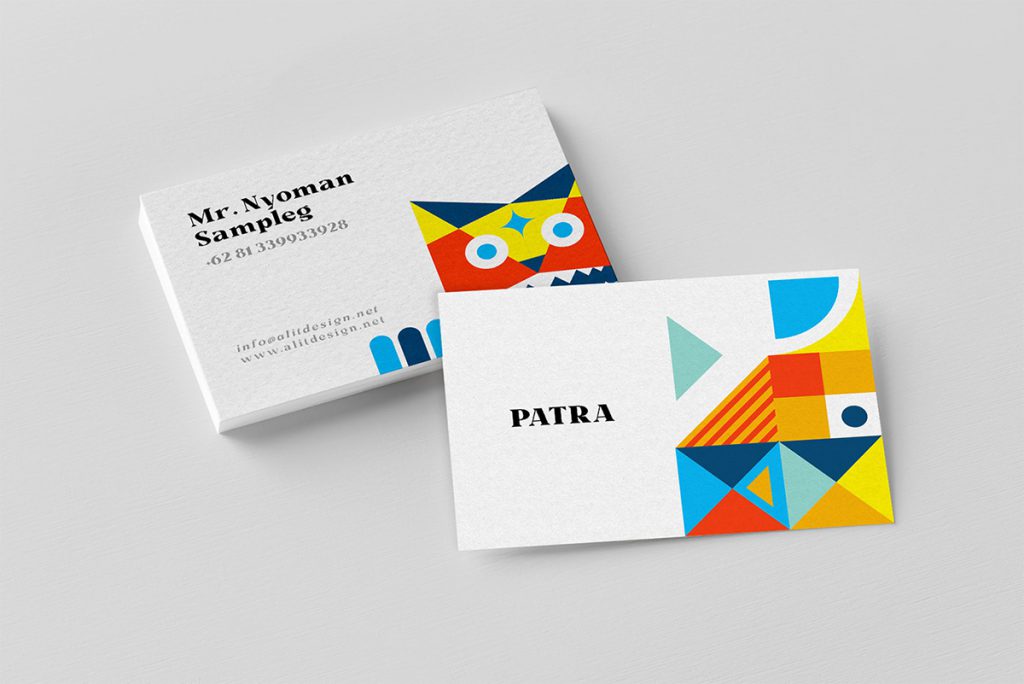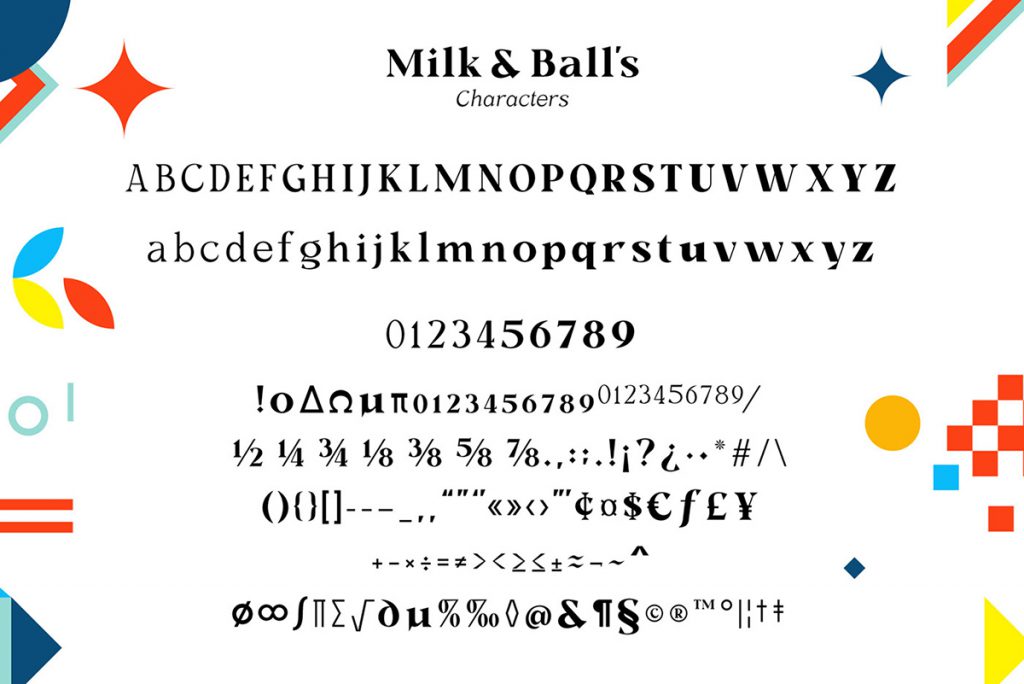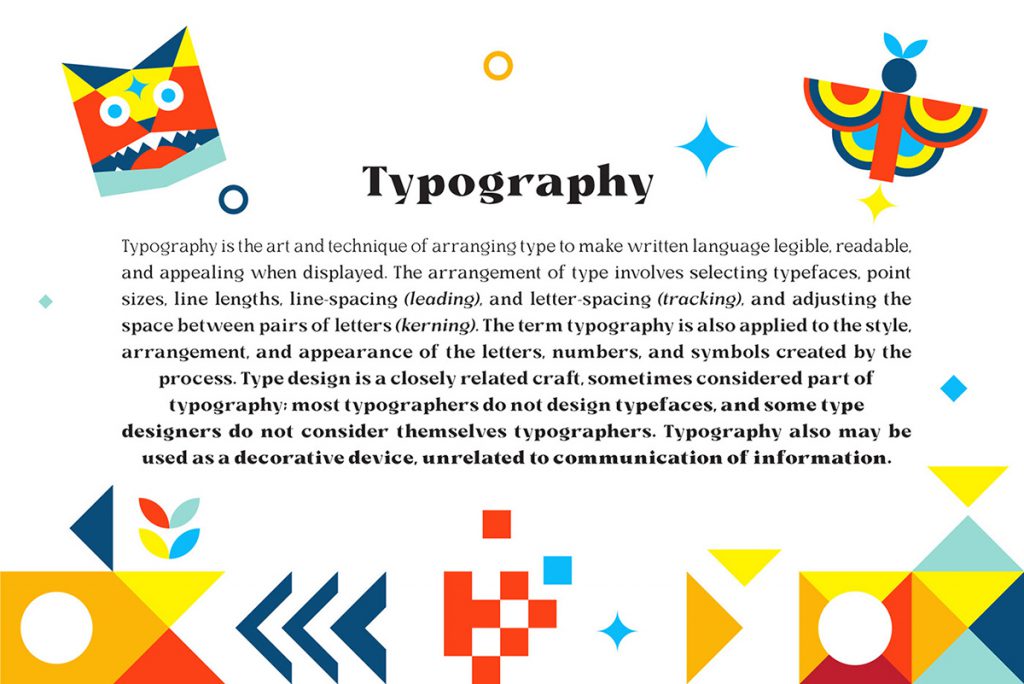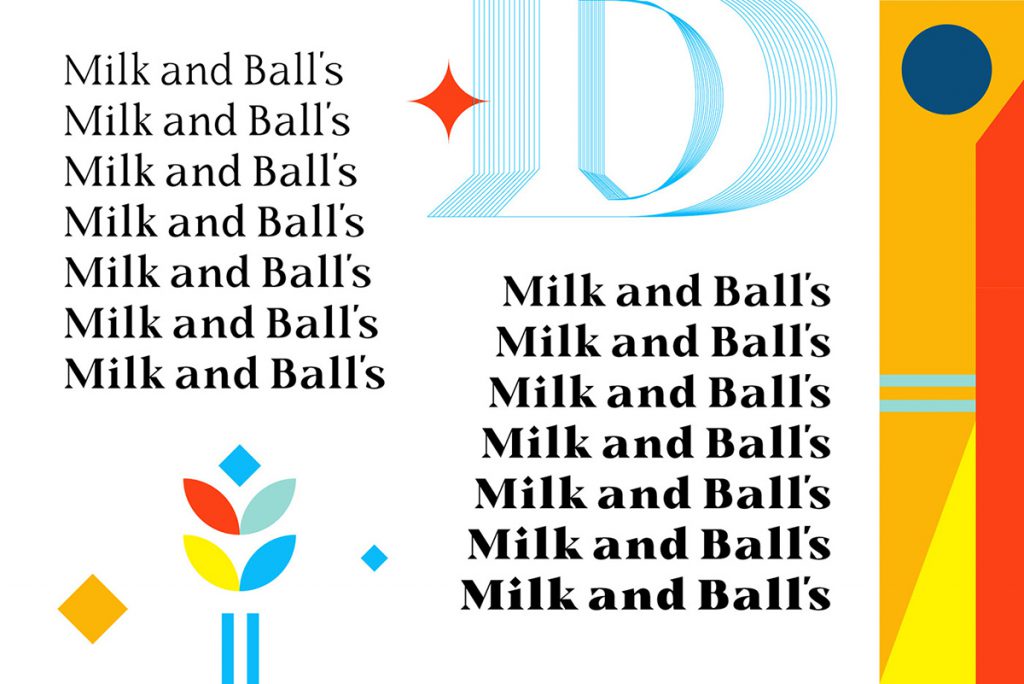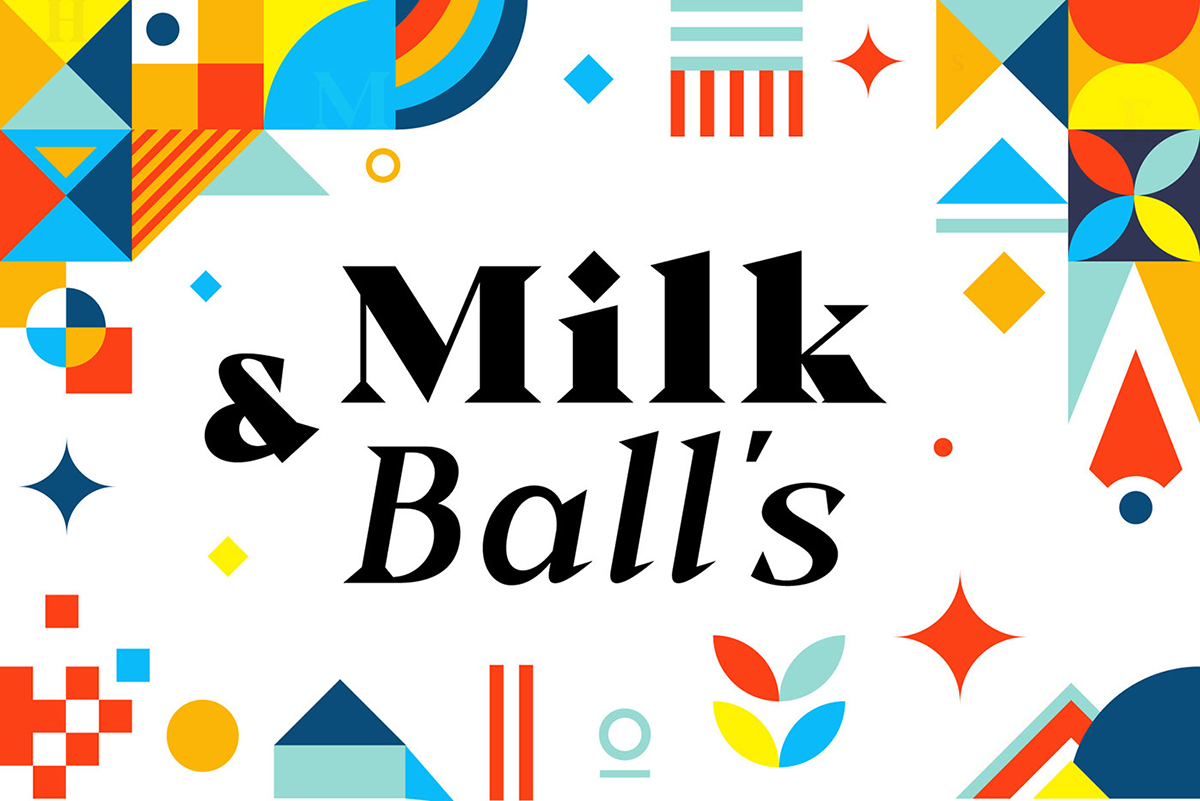
Milk And Ball’s Font
Milk and Ball’s Font is the latest font by Alit Design that may seems to appear rigid and decisive. However, it is perfect for bold and formal design concepts. The unique shape of the letter makes the design made different from the others.